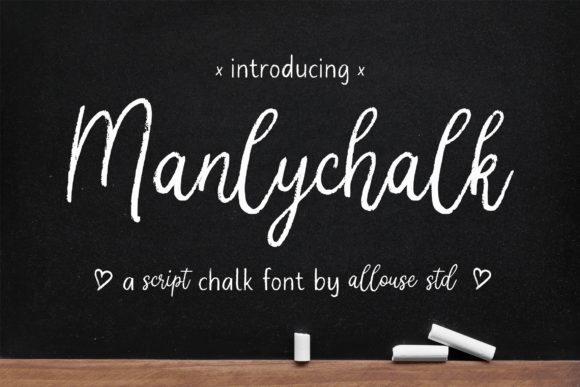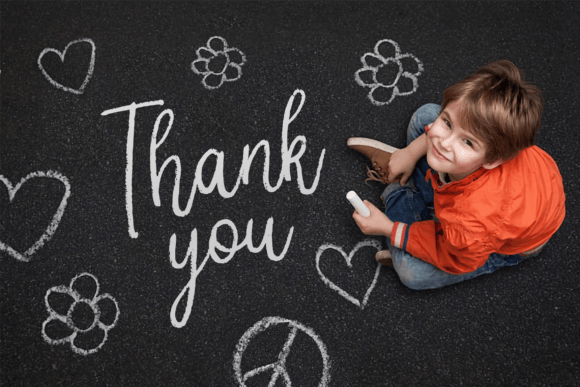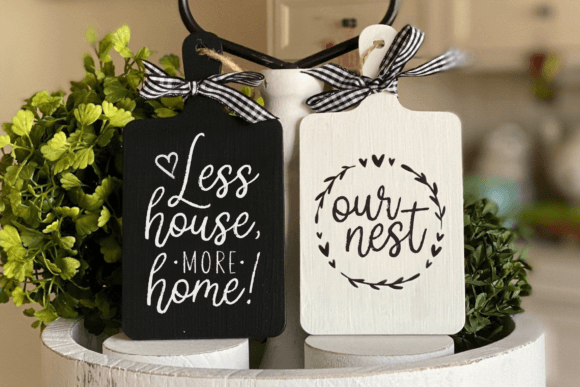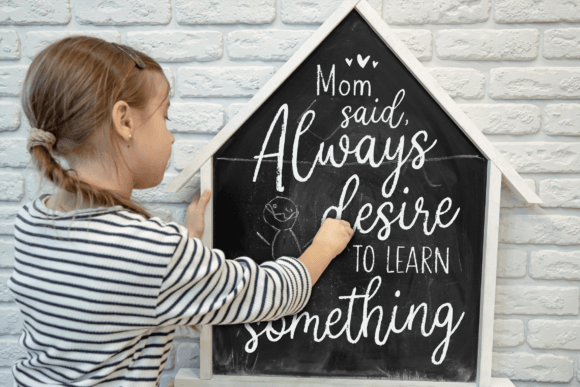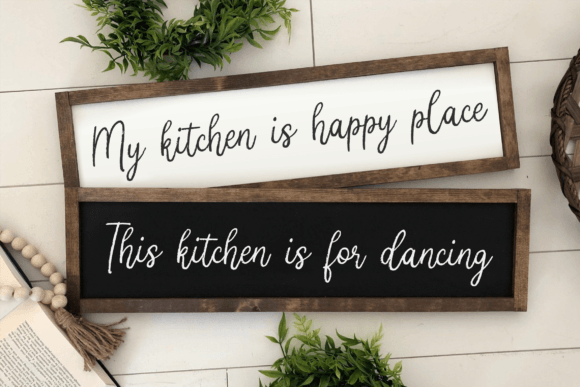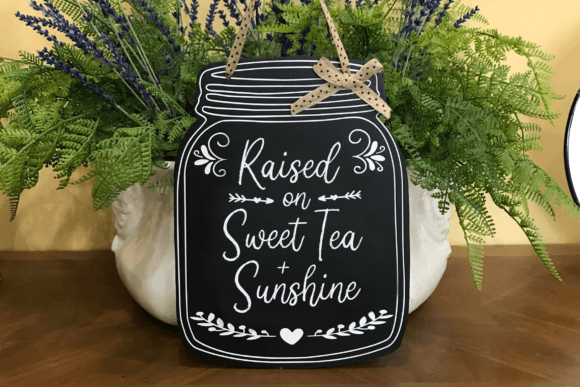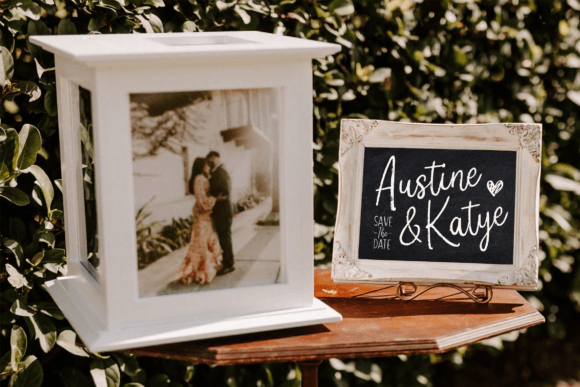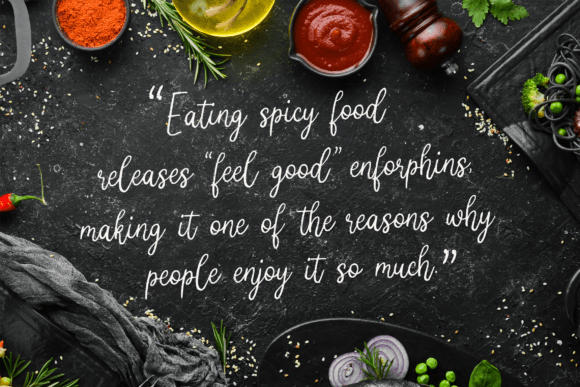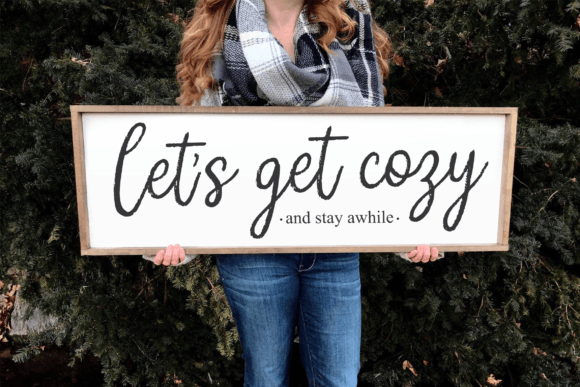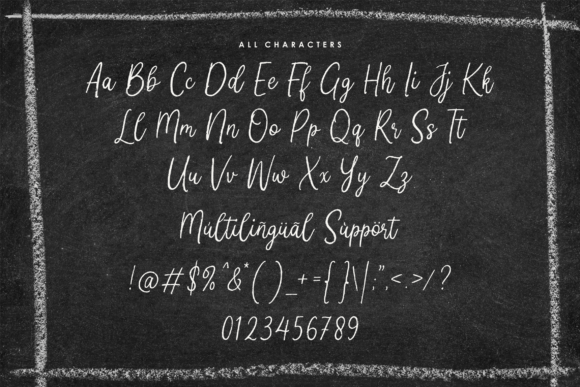
Manlychalk Font
About Manlychalk Font
Manlychalk, a script chalk font, is a versatile typeface suitable for a variety of creative applications. Its unique design combines the informal charm of chalk-style writing with a script font’s elegance. Whether you’re working on product packaging, branding projects, magazine layouts, social media graphics, wedding materials, or simply need text to stand out against a background, Manlychalk can be the perfect choice.
In product packaging, Manlychalk can bring a distinctive and handcrafted look to your designs. Its chalk-inspired appearance adds a sense of authenticity and uniqueness, making your products more appealing to consumers.
For branding projects, Manlychalk offers a playful and artistic touch that can set your brand apart. Whether you’re using it for logos, promotional materials, or overall brand identity, this font can infuse your brand with creativity and character.
Magazine layouts can benefit from Manlychalk’s informal yet stylish appeal. It’s well-suited for headlines, titles, or pull quotes, injecting a touch of casual elegance into your editorial design.
On social media, Manlychalk helps your posts and graphics stand out. Its distinctive chalk script adds a dynamic and eye-catching element to your content, making it more engaging and memorable.
In the context of weddings, Manlychalk can be used to create invitations, save-the-dates, and other materials that require a mix of informality and charm. It adds a personalized and artistic touch to these special occasions.
Beyond specific design projects, Manlychalk is versatile for expressing words creatively against various backgrounds. Whether you’re designing posters, banners, or any visual content that needs text to pop, this font’s unique chalk script can make your message visually striking and attention-grabbing.
In summary, Manlychalk is a flexible script chalk font that can enhance the visual appeal of your designs across a range of applications. Its ability to convey authenticity, creativity, and charm makes it a valuable asset for designers and creatives aiming to create visually compelling and distinctive projects.